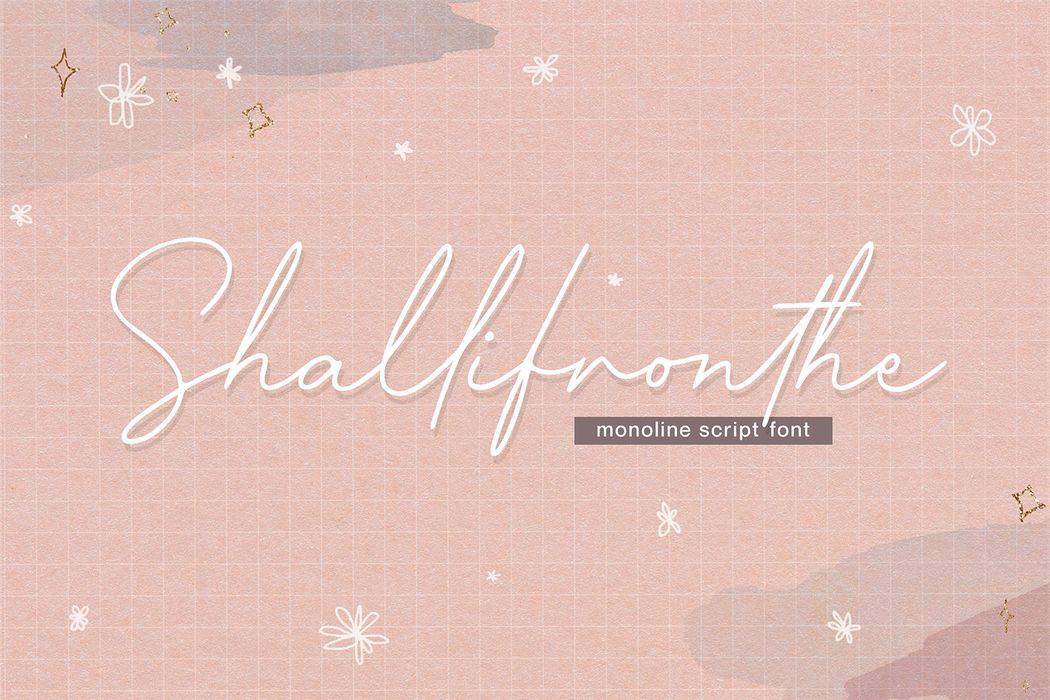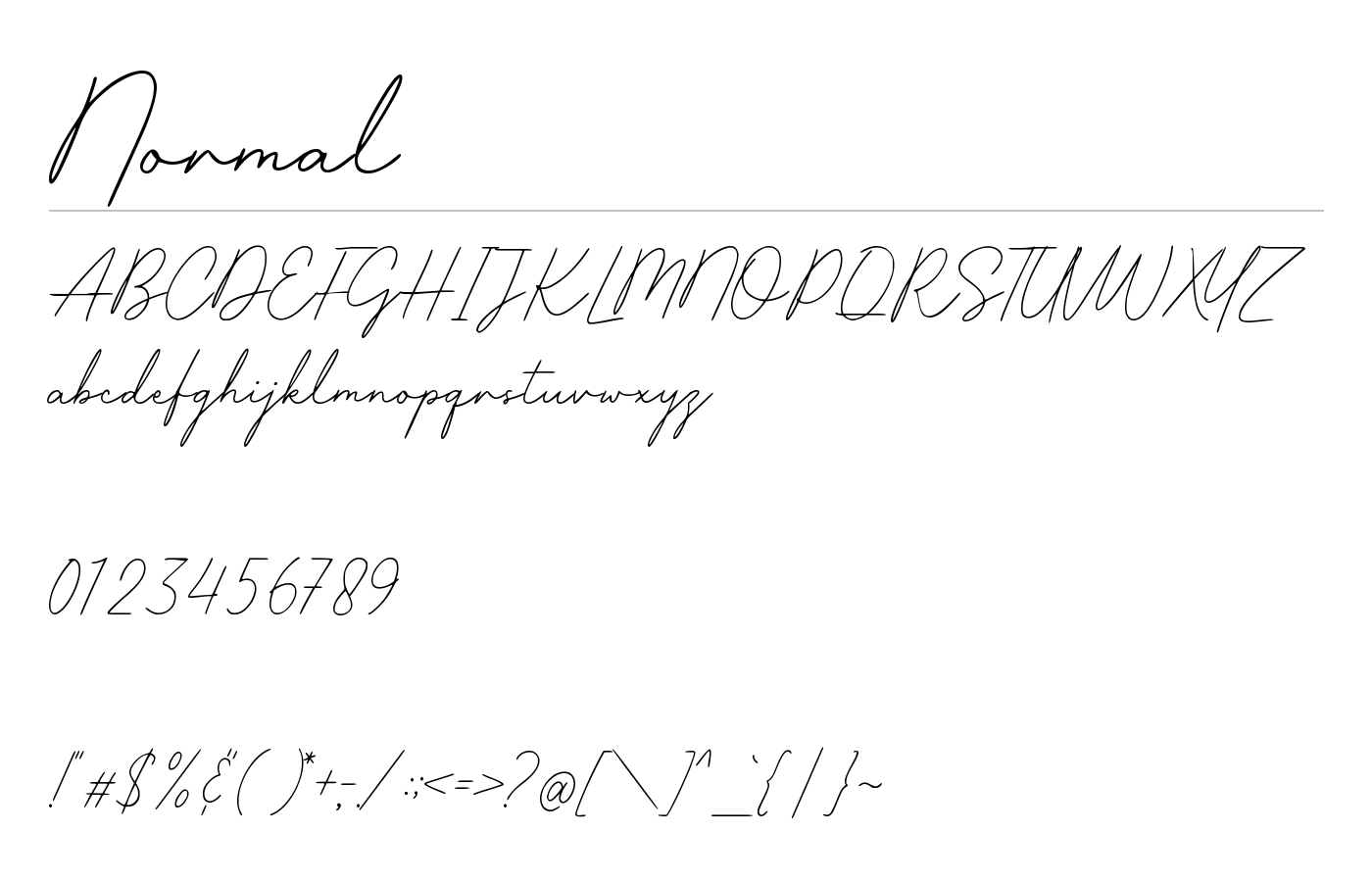
Shallifronthe is a delicate, handwritten script font featuring slender, flowing strokes that give it an elegant and personal touch. Its tall, narrow letterforms with subtle flourishes feel sophisticated and modern, making it ideal for stylish branding, invitations, and editorial headlines where a refined yet approachable look is desired. This font conveys a sense of grace and creativity, perfect for projects needing a distinctive, airy handwritten feel.
Shallifronthe Font